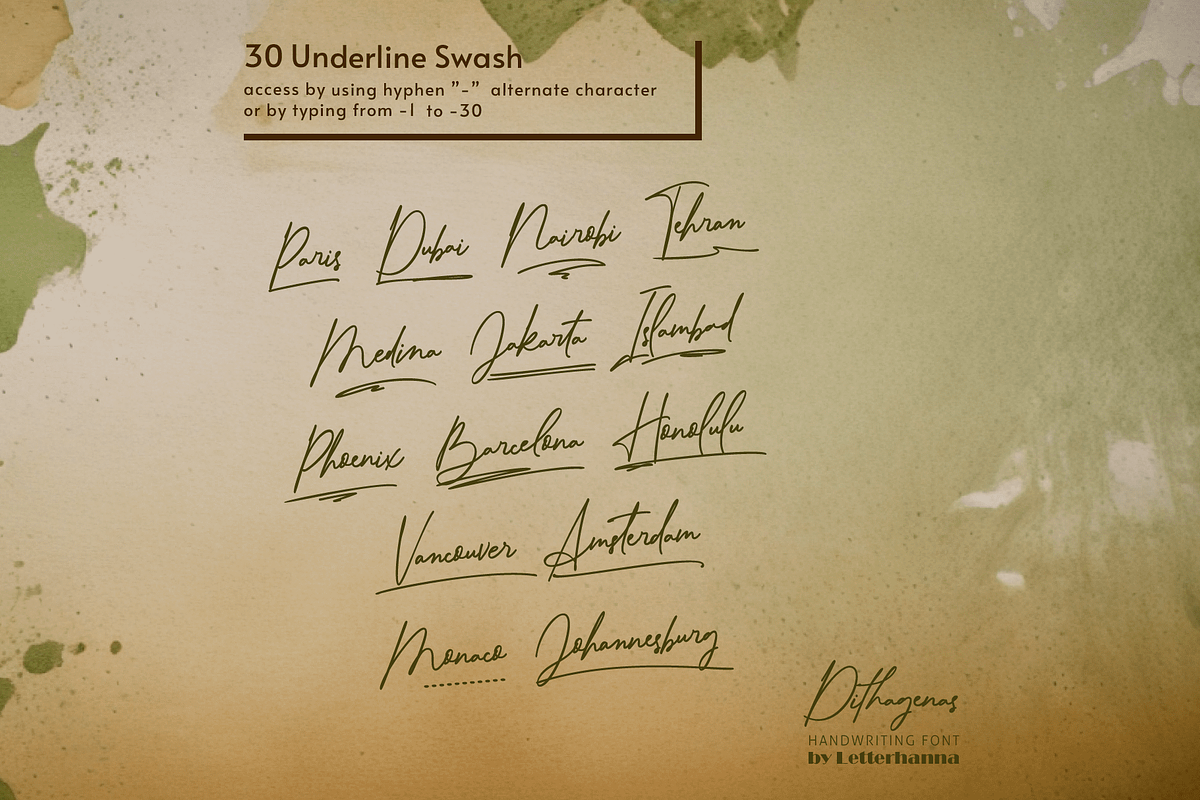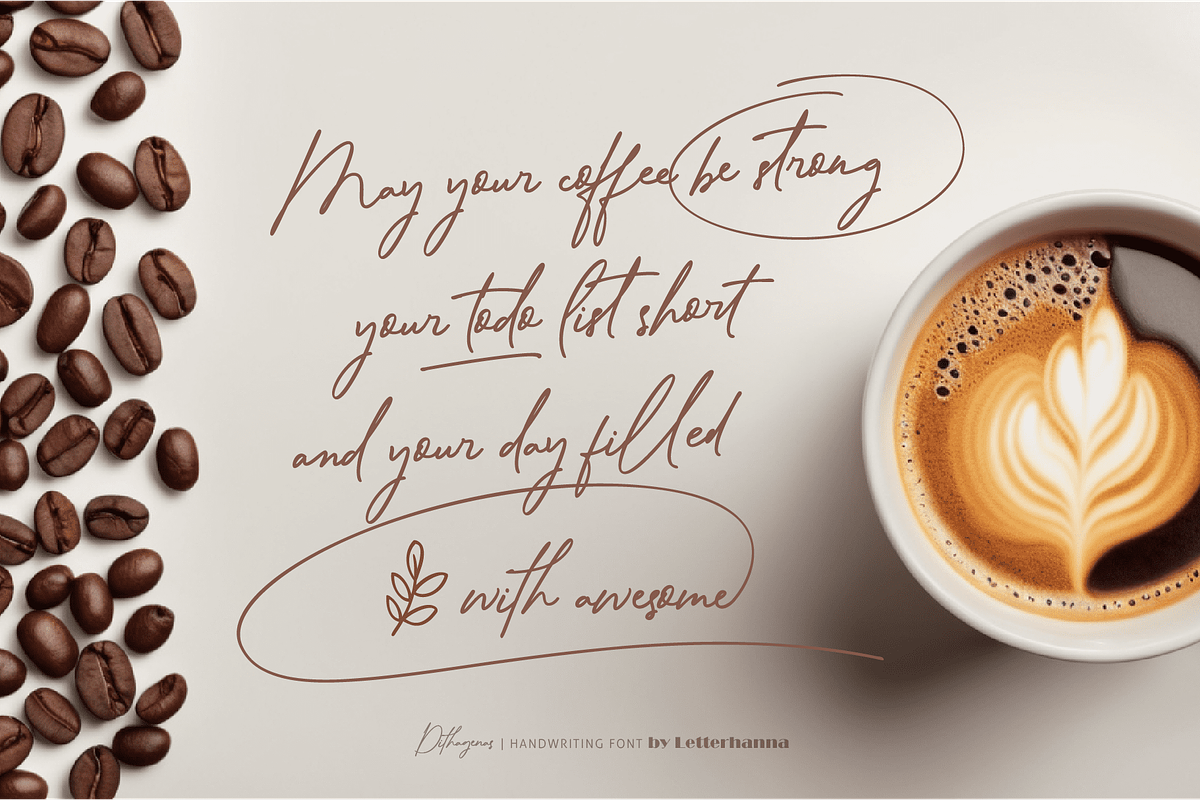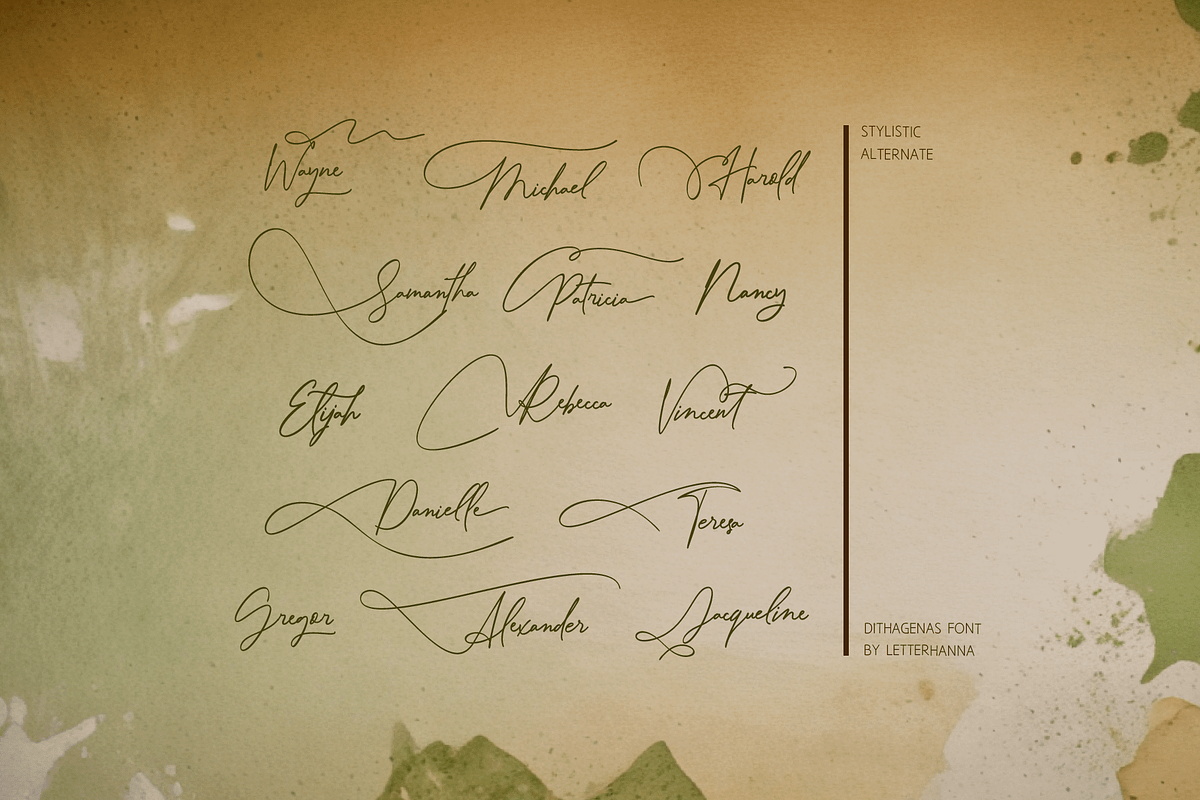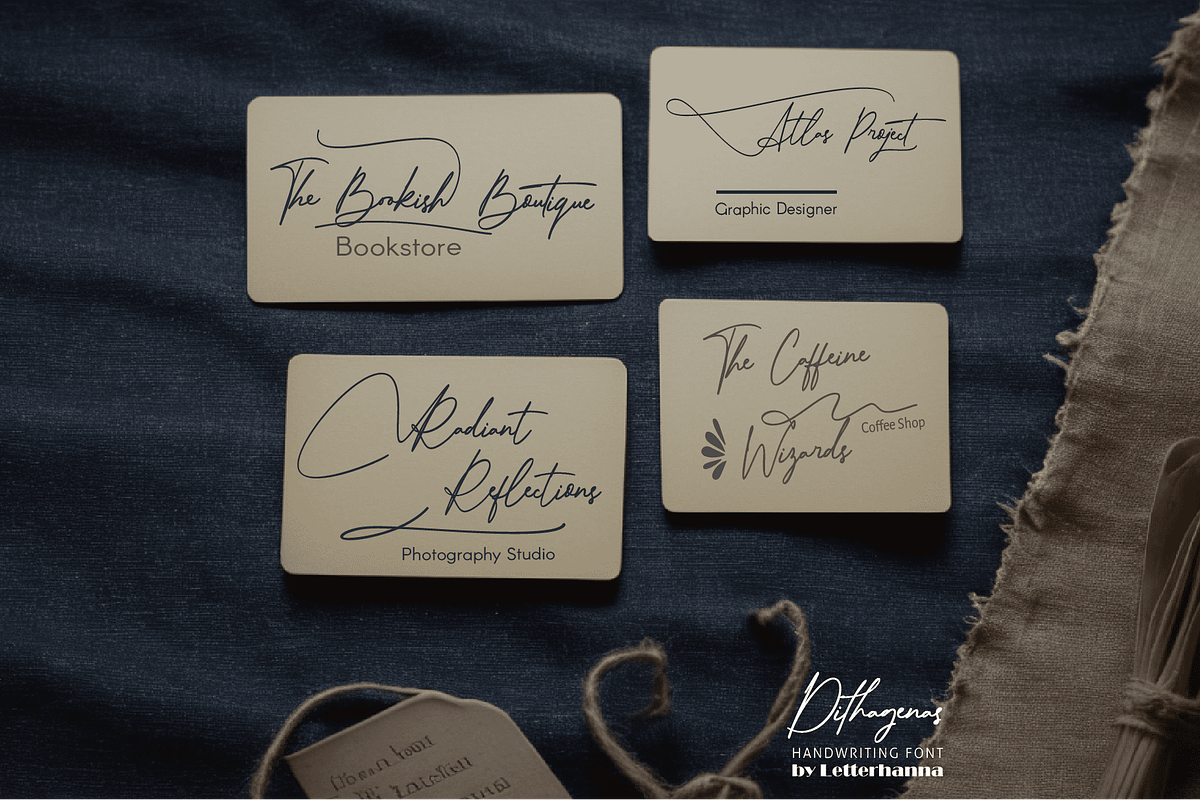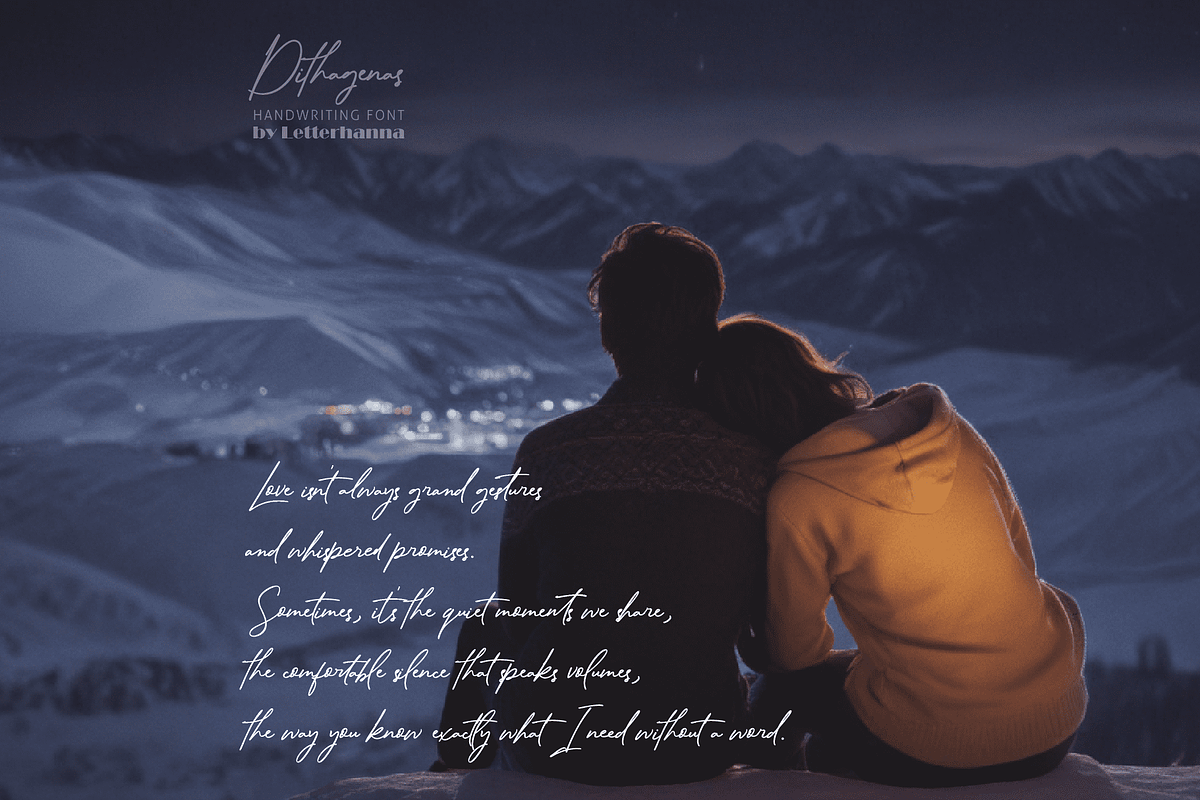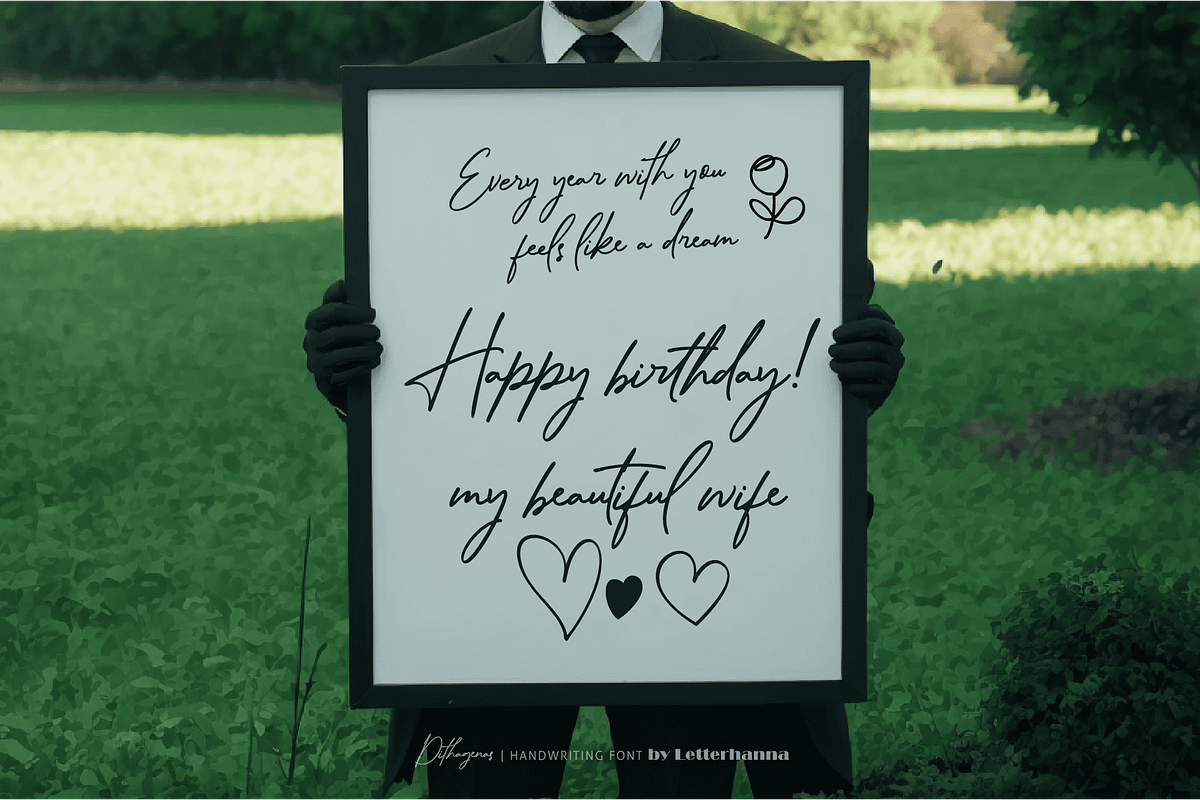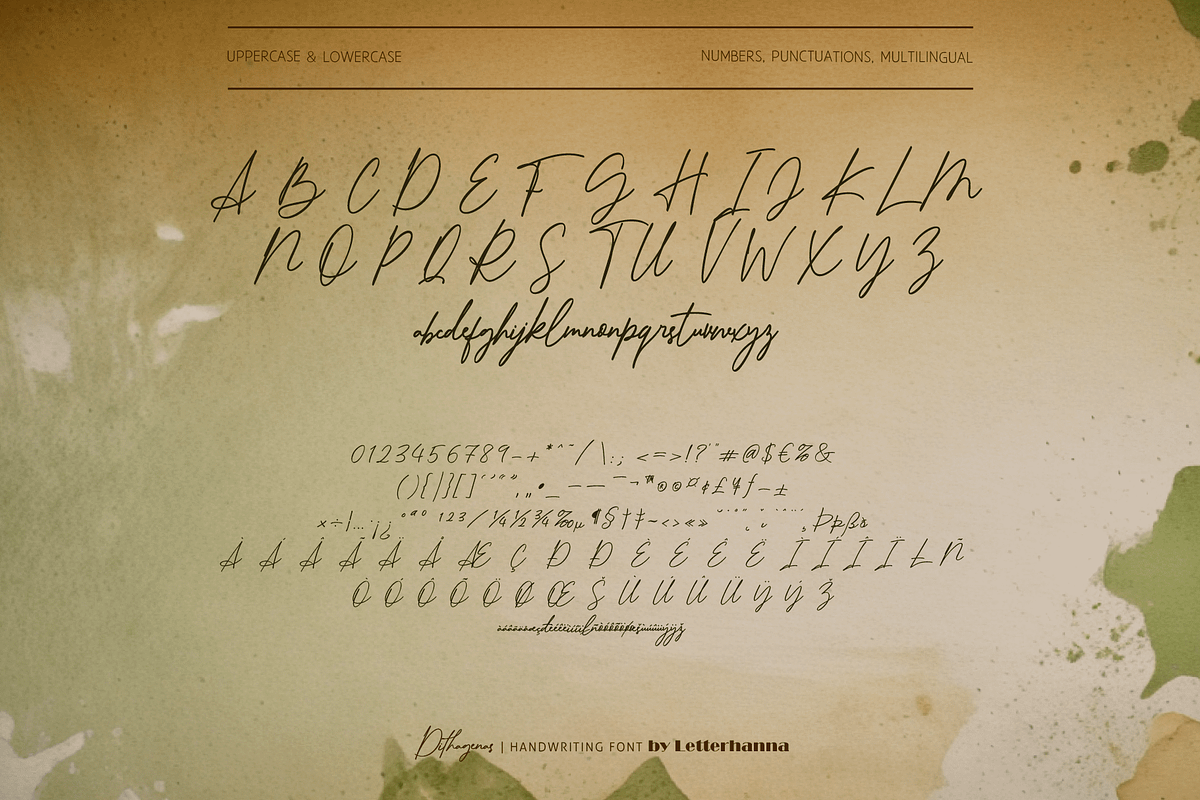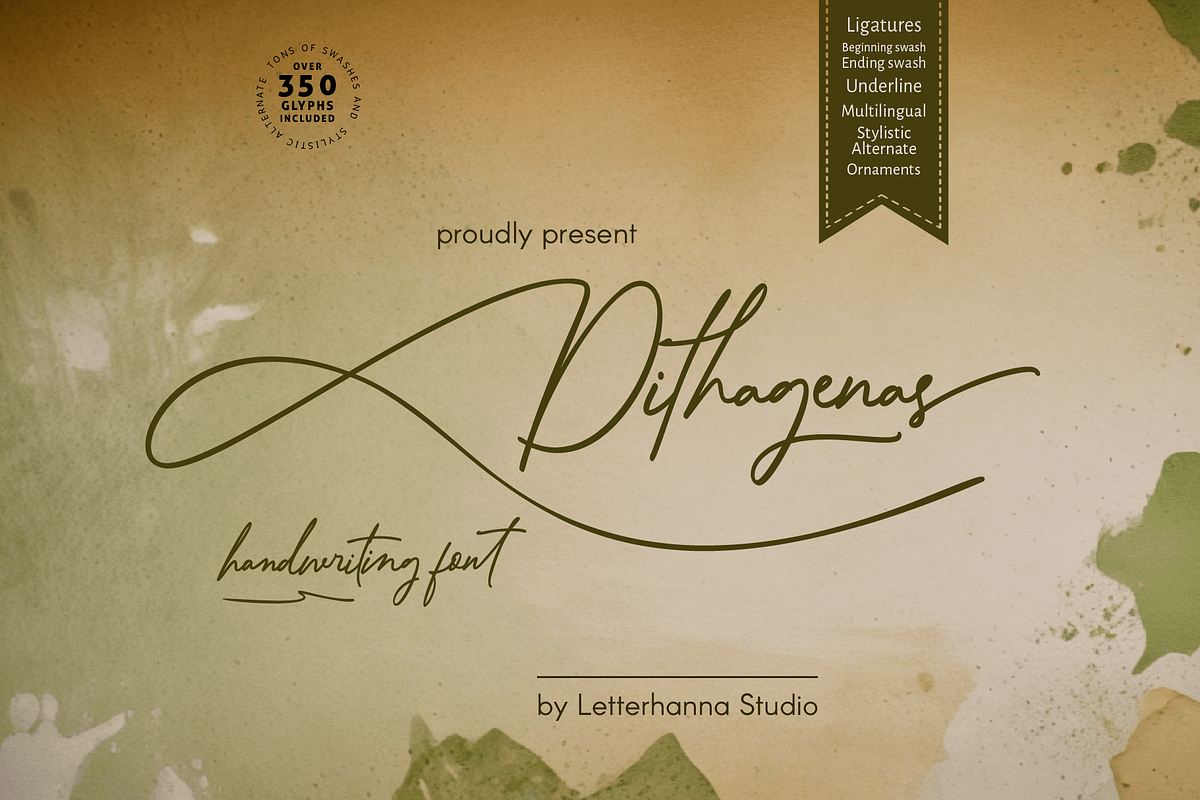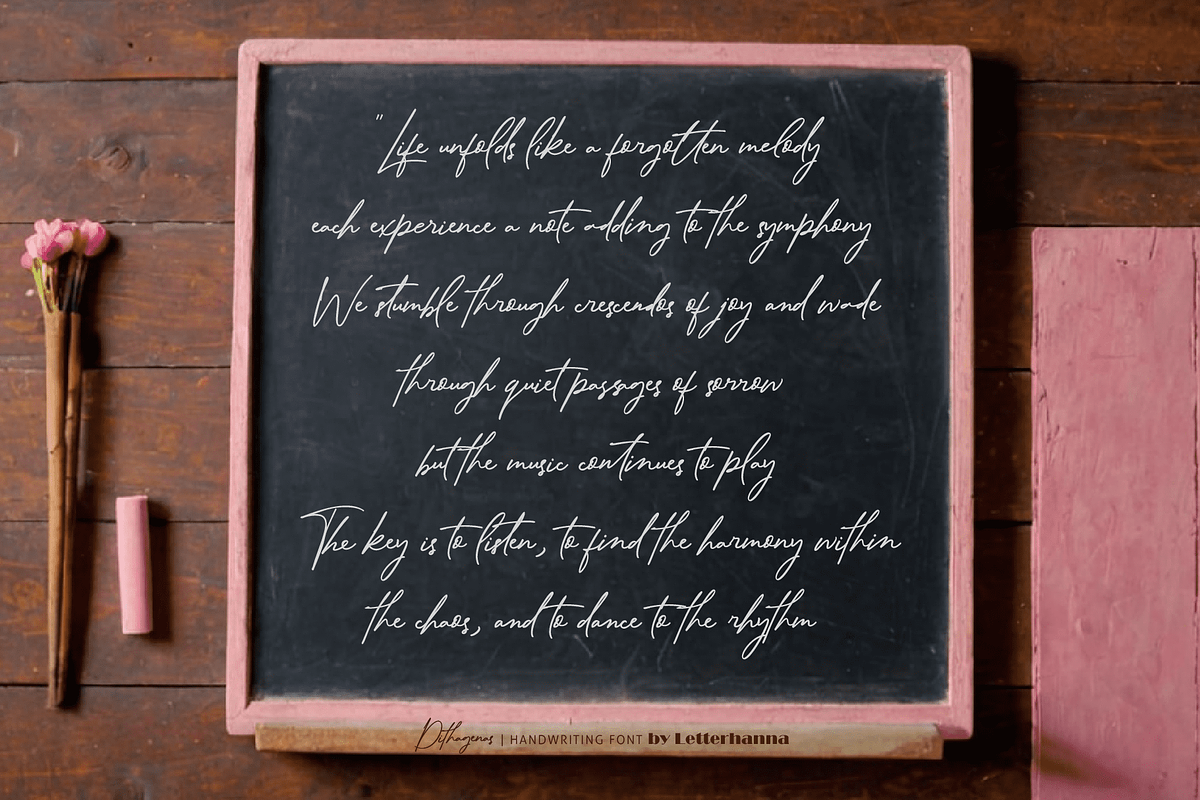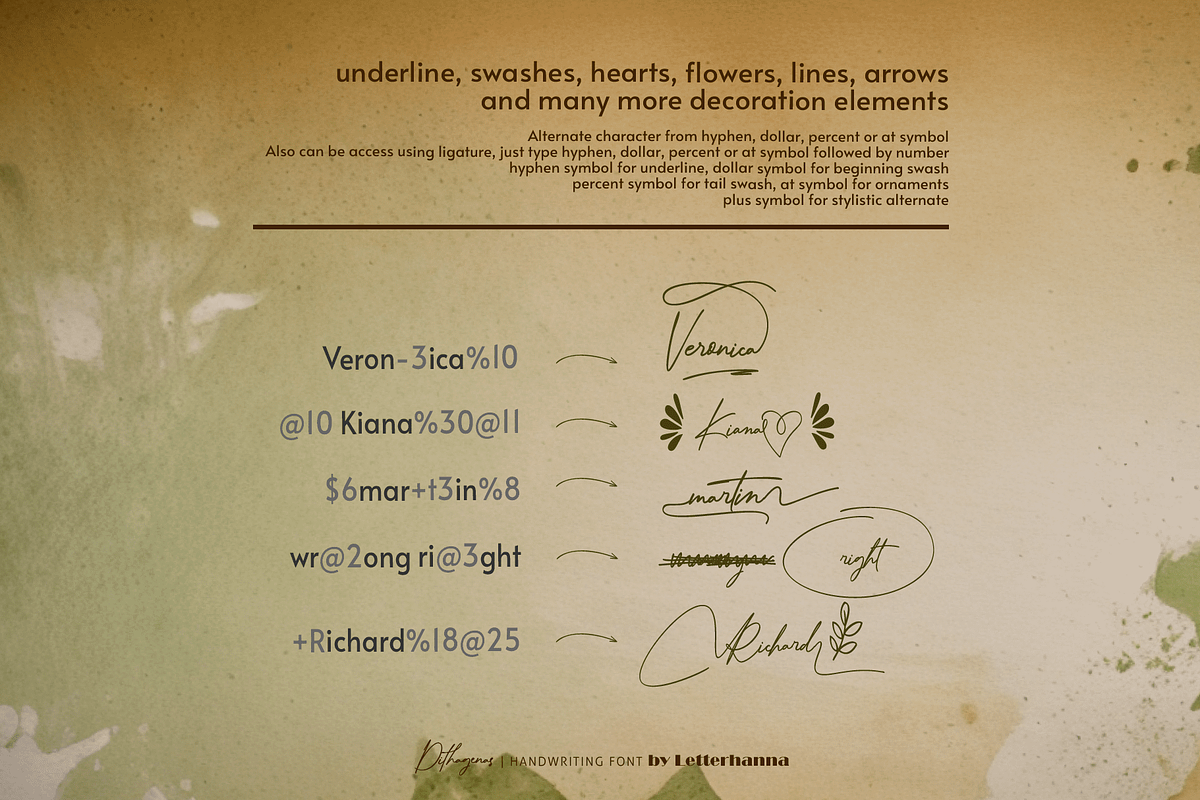
Dithagenas Font
Embrace Dithagenas, a new handwriting script font meticulously crafted to elevate your creative endeavors. Drawing inspiration from the graceful loops and inherent variations of handwritten text, Dithagenas achieves a captivating harmony of refinement and natural ease.
Dithagenas empowers you to adorn wedding invitations, branding materials, social media content, or any project yearning for the allure of handwritten flair. Its smooth, flowing lines and captivating imperfections cultivate a sense of genuineness and warmth, ensuring your words resonate with the authenticity of a handwritten note.
Easy Access to Glyphs and Swashes
Accessing Stylistic Alternates
Stylistic alternates can be accessed by typing a plus symbol "+" in front of the original letter. For example, type "+a" to get the stylistic alternate of the letter a.
Accessing Swashes and Ornaments
Underline Swashes: Use a hyphen symbol "-" followed by a number between 1 and 30. For example, type "-3", "-22", or "-17" to get various underline swashes.
Head/Beginning Swashes: Use a dollar sign "$" followed by a number between 1 and 9. For example, type "$2" or "$8" to get different head/beginning swashes.
Tail/Ending Swashes: Use a percent sign "%" followed by a number between 1 and 30. For example, type "%3" or "%15" to get various tail/ending swashes.
Ornaments: Use an "at" symbol "@" followed by a number between 1 and 26. For example, type "@4" or "@13" to get different ornaments.
PUA Encoding for Ease of Use. Dithagenas Font is also PUA encoded, which means you can access all the glyphs and swashes with ease!
Uppercase and lowercase letters
Numbers and punctuation marks
Beginning and ending swashes
Underline swashes
Stylistic alternates
Ornaments
Easy access to swashes using ligatures